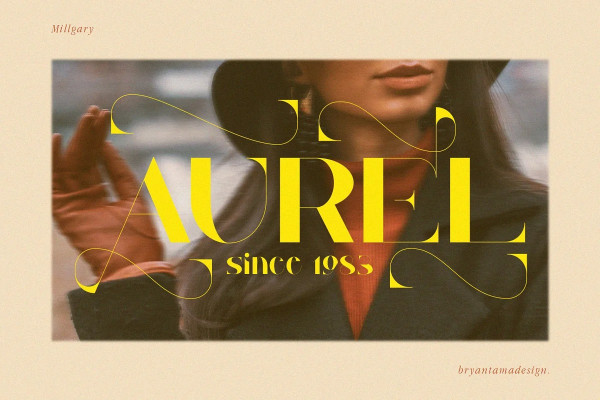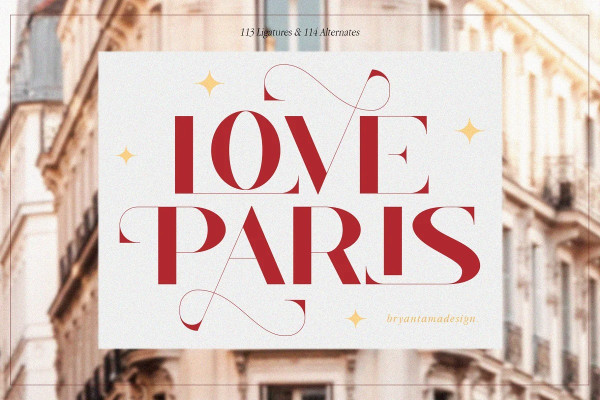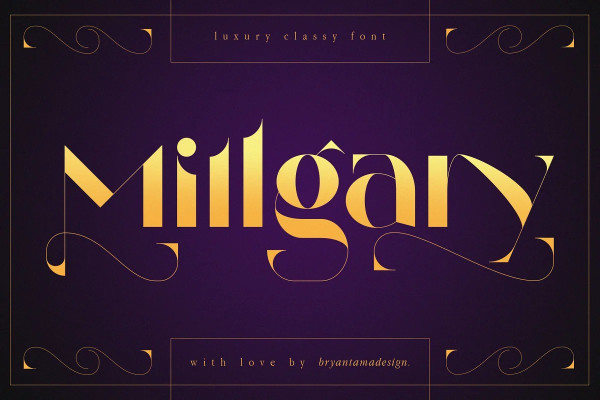
Millgary Font
Millgary Font – Luxury & Classy Typeface,  inspired by historical architecture in European cities that make the font has a unique personality with ornament style & little modern touch, you can use it for branding, social media, posters, packaging, & more.